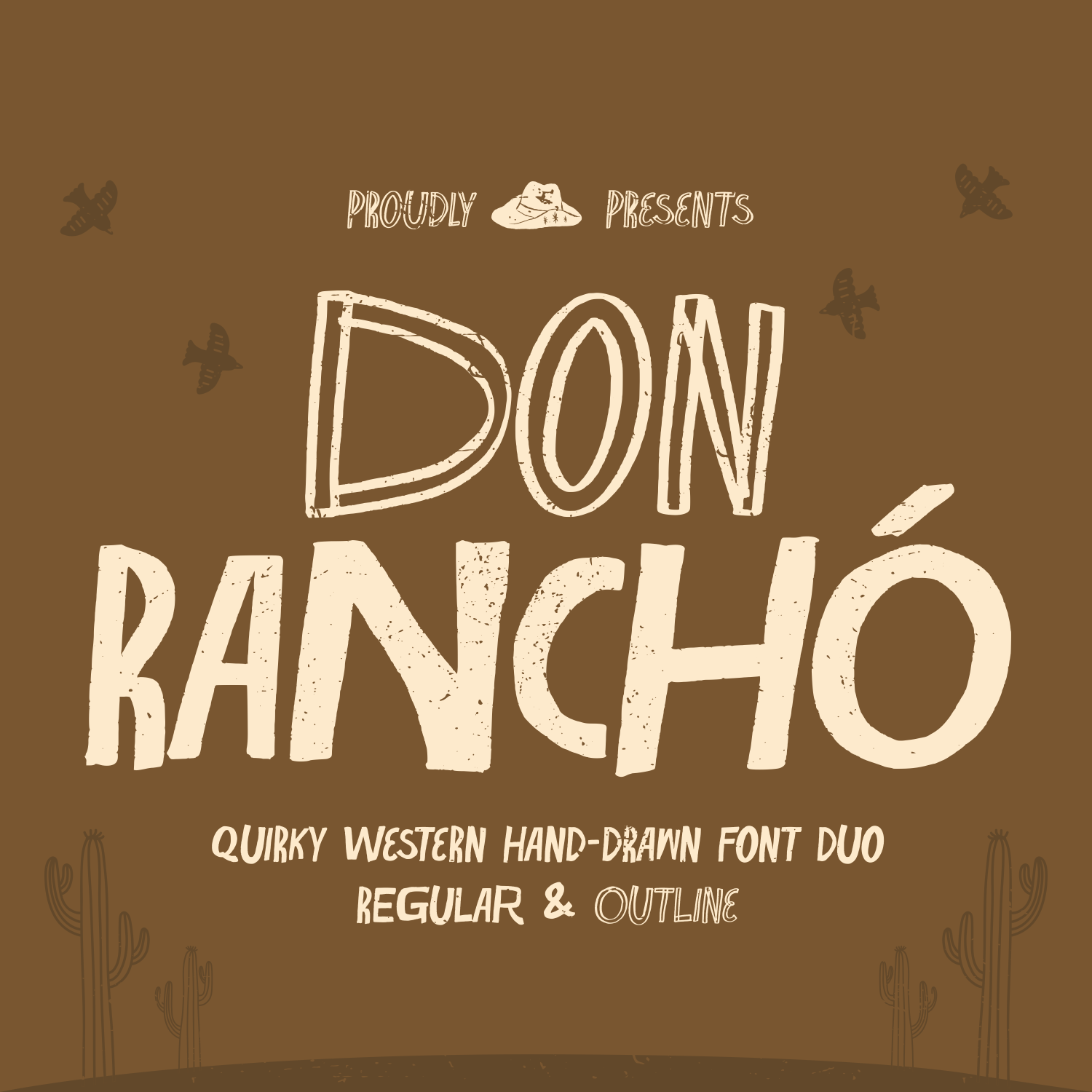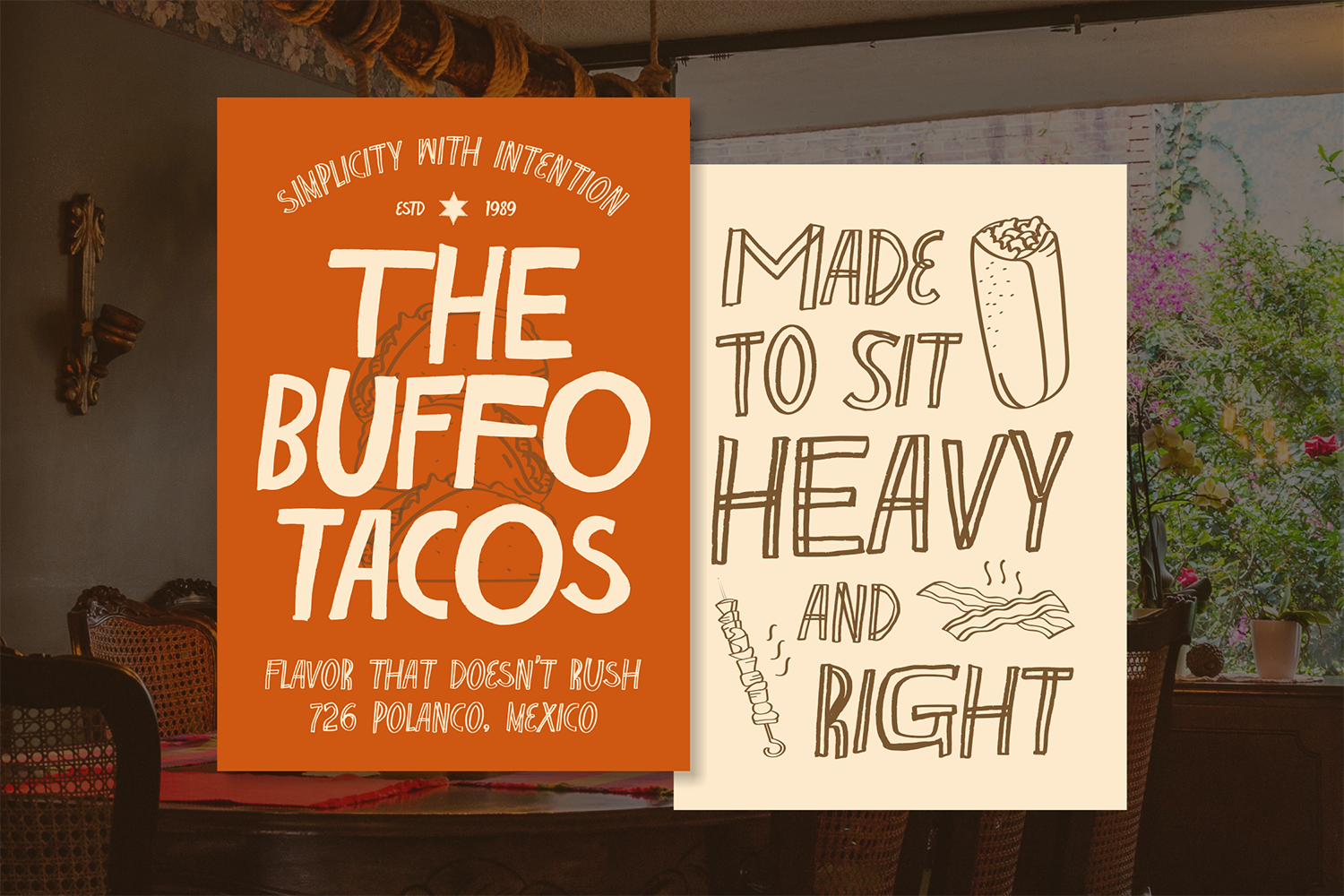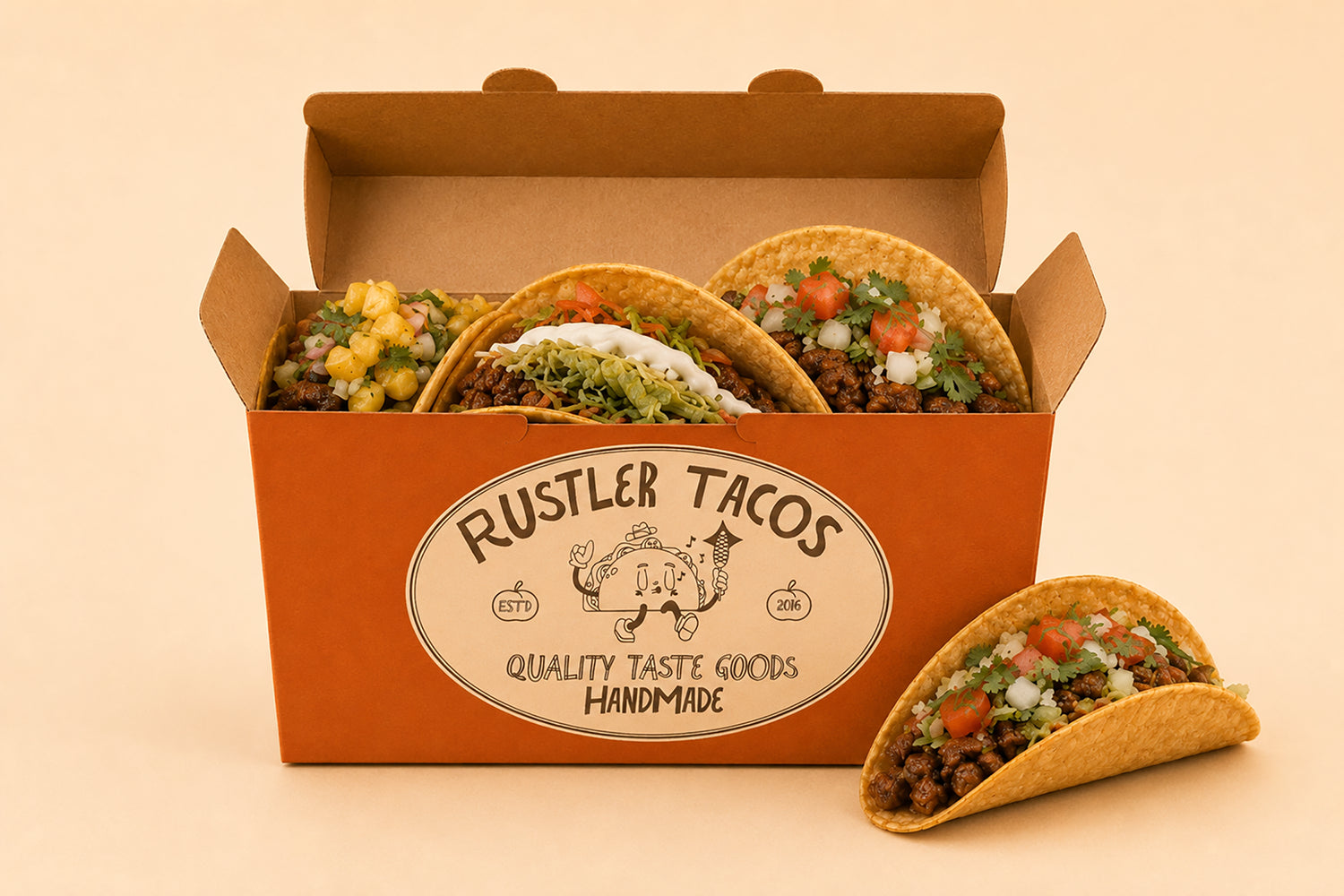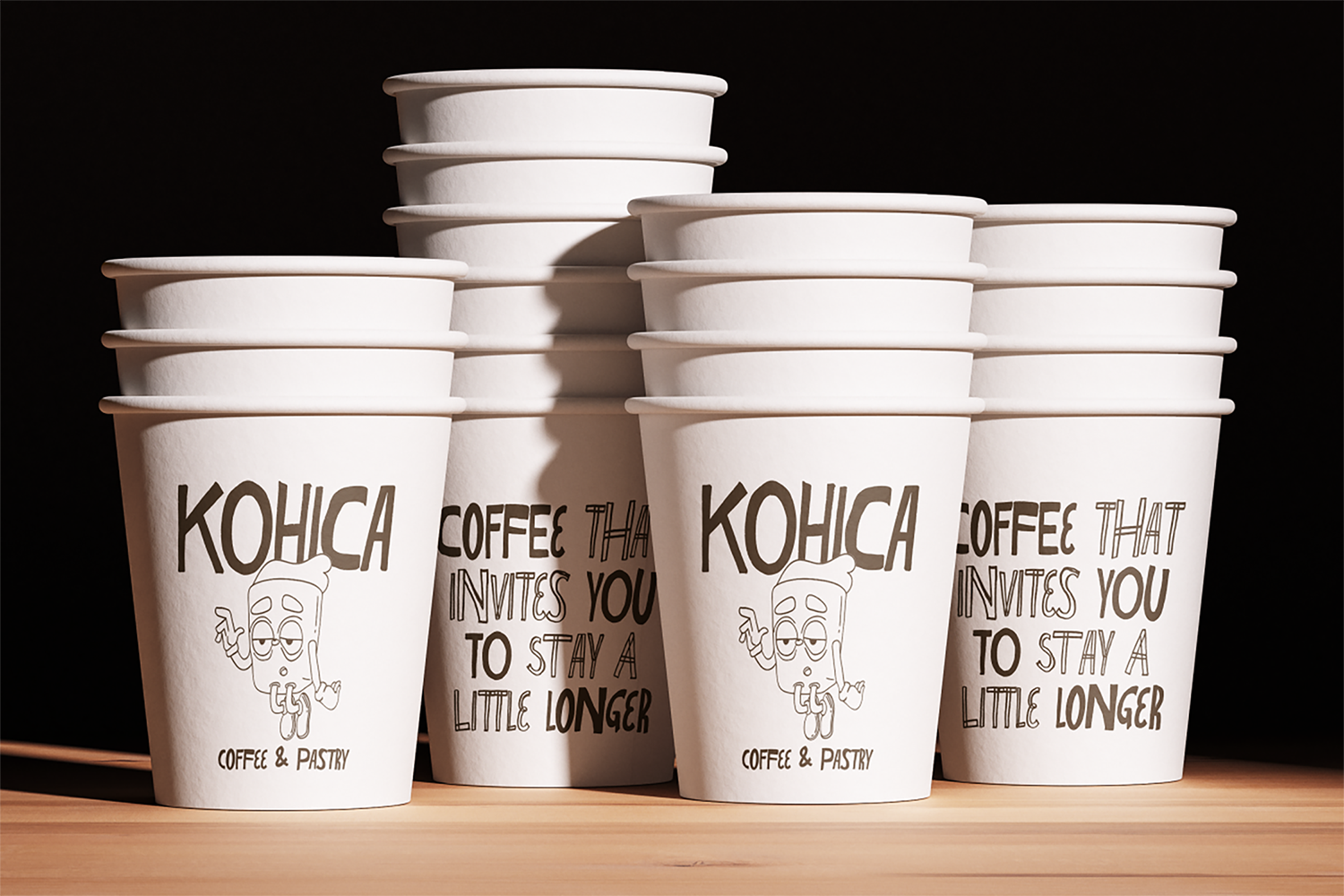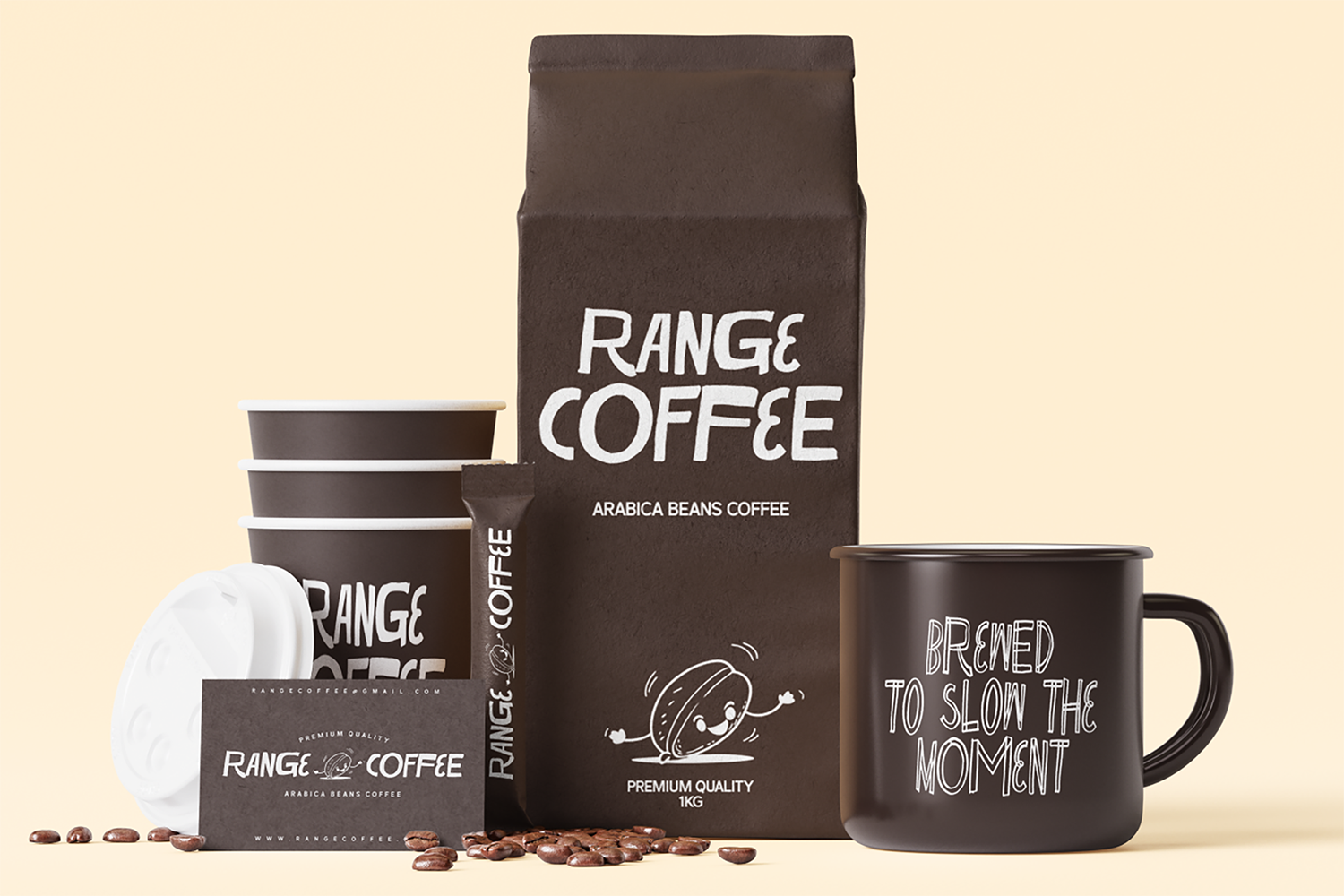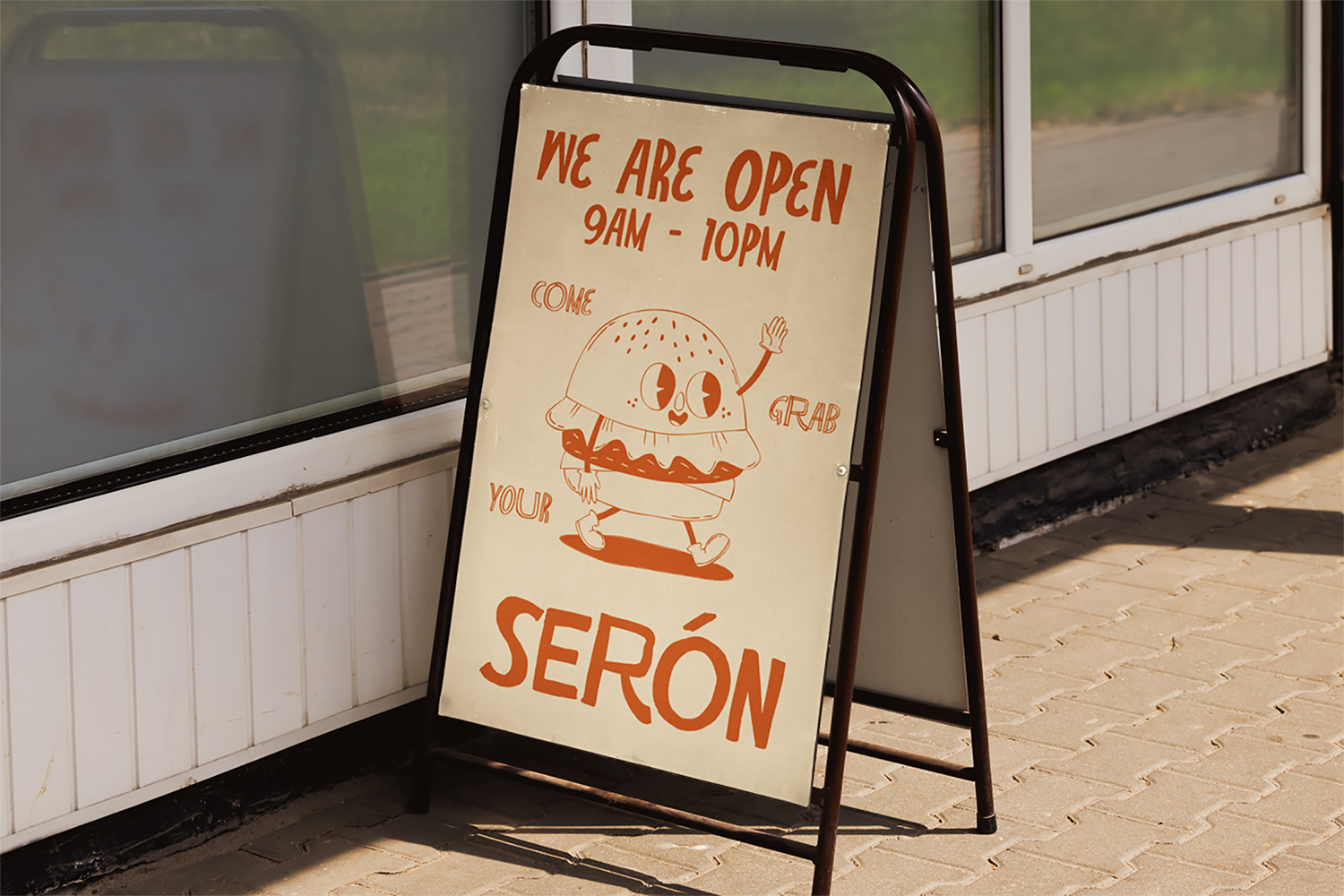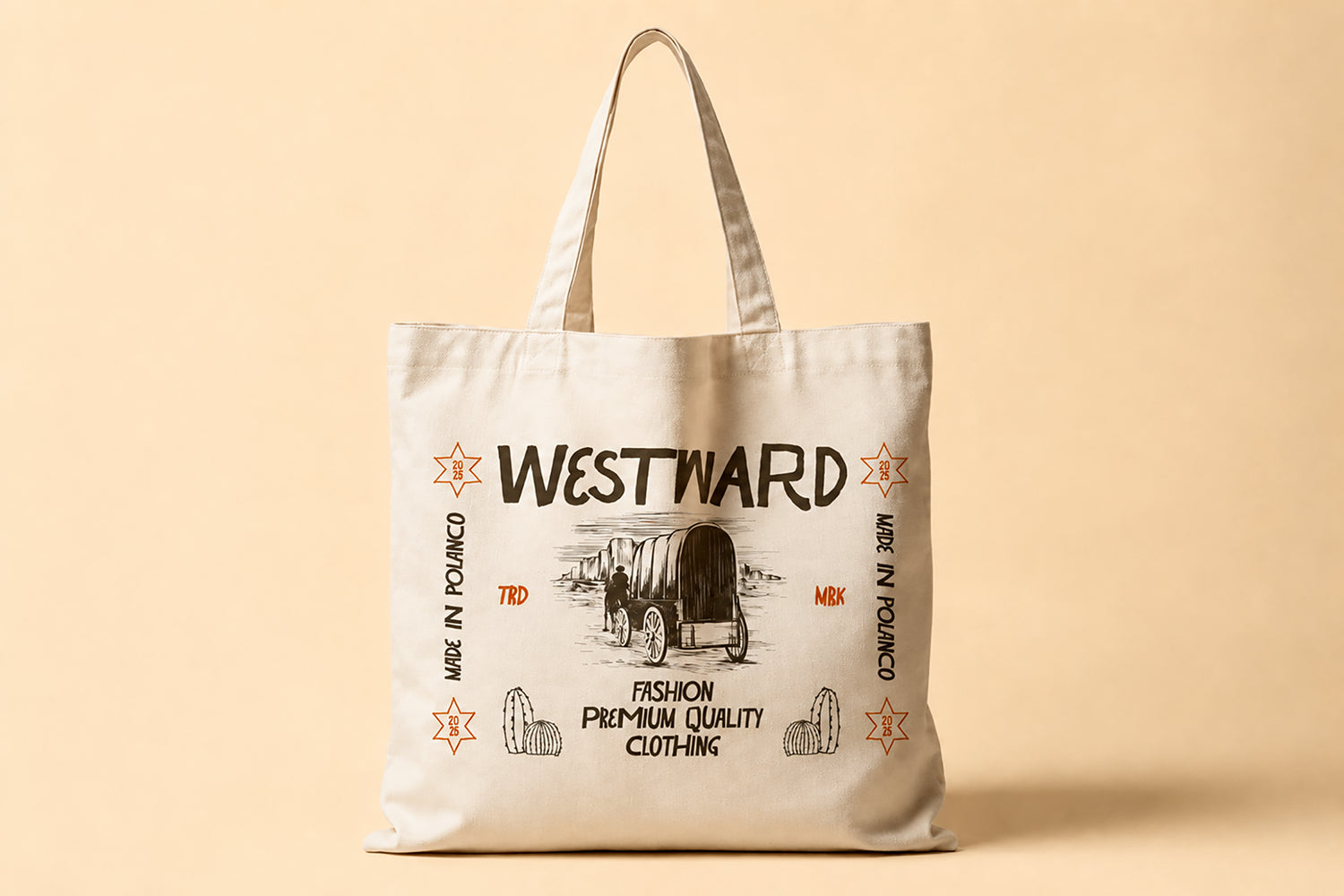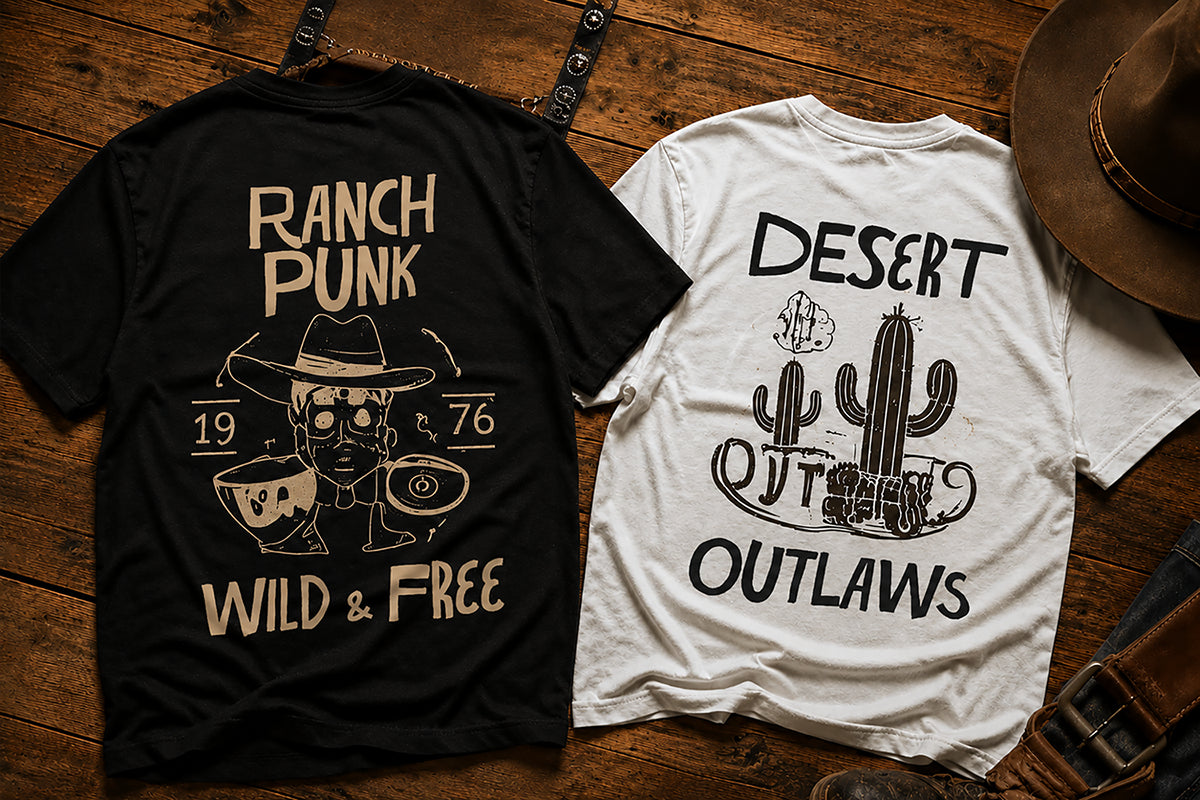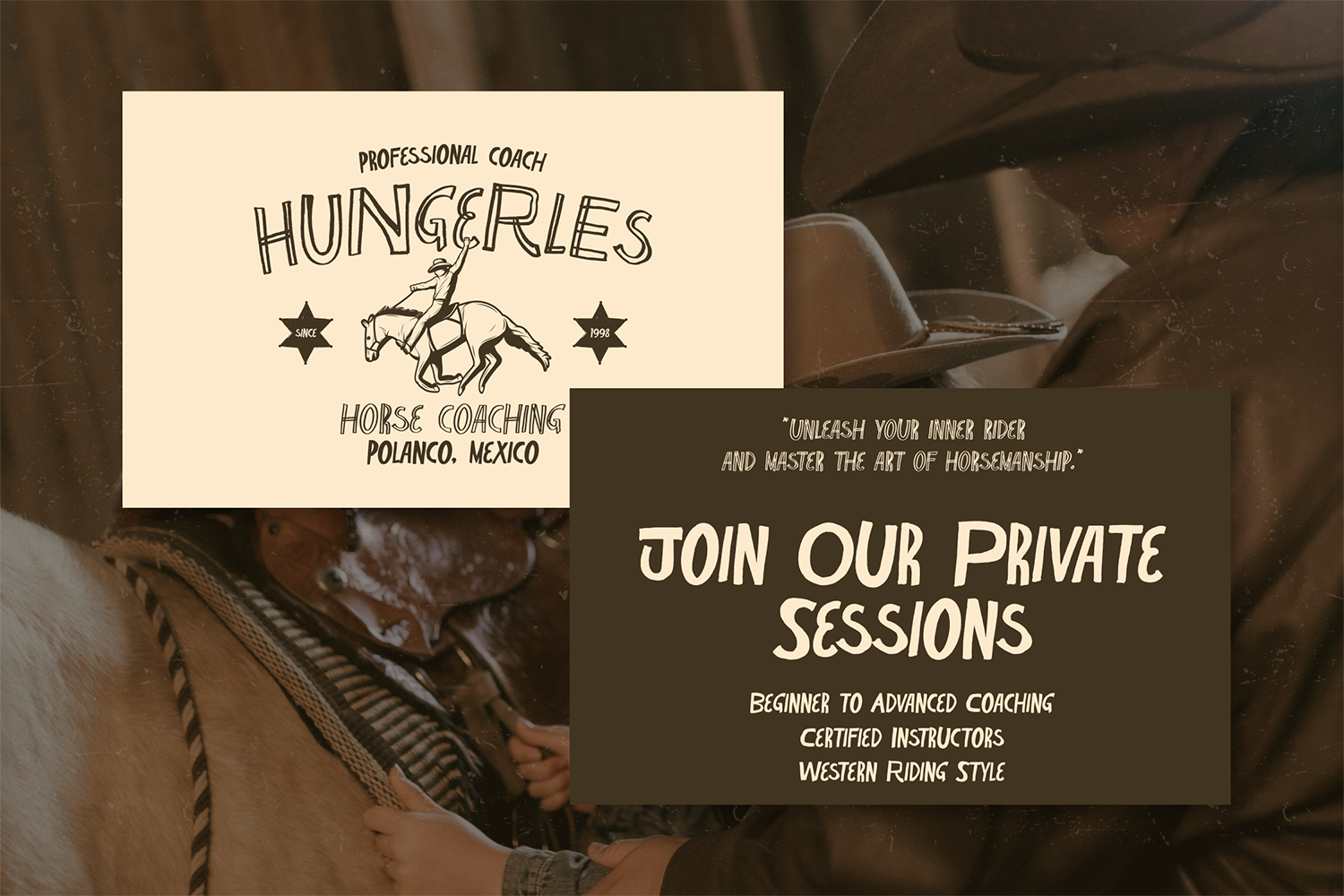
Don Rancho - Quirky Western Hand-Drawn Font Duo
Meet Don Rancho, a quirky hand-drawn Western display font family created for restaurant logos, food packaging, vintage signage, posters, apparel, and merchandise.
Inspired by ranch signs, desert landscapes, cantina lettering, and handcrafted food branding, Don Rancho blends irregular shapes, rough edges, and playful proportions into a rustic style that feels bold, friendly, and unmistakably original.
Don Rancho includes two coordinated styles:
• Regular - ideal for strong logos, headlines, packaging, signage, and bold display typography.
• Outline - perfect for adding contrast, rhythm, and lighter handcrafted detail.
Its approachable letterforms make it playful enough for taco shops, cafés, posters, and merchandise, while its strong visual presence also works for complete restaurant identities, packaging systems, and commercial campaigns.
Perfect For
• Western and Southwestern branding
• Restaurant, cantina, taco, coffee shop, and café logos
• Food and beverage packaging
• Labels, stickers, signage, and storefront graphics
• Posters, event promotions, and editorial headlines
• Apparel, merchandise, and social media campaigns
• Desert, ranch, outdoor, and rustic branding
Font Features
• Regular and Outline styles
• Uppercase and lowercase characters
• Numerals, punctuation, and symbols
• OpenType features
• Multilingual support
Don Rancho is a quirky hand-drawn Western display font duo that includes Regular and Outline styles, featuring uppercase and lowercase characters, numerals, punctuation, and symbols. Designed for versatility, it supports multilingual text and is available in OTF, TTF, and WOFF formats, compatible with both PC and Mac.